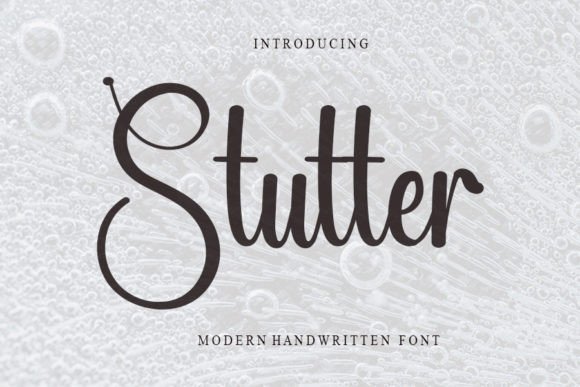
Dive into the world of elegant penmanship with Stutter Font, a script font that exudes charm and sophistication. Crafted by the skilled hands of NYA Letter, Stutter is a contemporary take on classic calligraphy, designed to add a touch of grace to your creative endeavors.
Step into a world where words dance with fluidity and style. Stutter's carefully crafted strokes, with their perfect balance between thickness and thinness, create a visual symphony that captivates the eyes. Its varied character ensures that each letter stands out, adding depth and dimension to your designs.
Unleash your creativity and let Stutter transform your projects into masterpieces. Its modern vibe and spotless form make it the perfect choice for wedding labels, where every word carries a tale of love and commitment. Imagine your invitations adorned with Stutter's graceful strokes, each name a testament to the unique bond you share.
With Stutter, your words take on a life of their own, flowing effortlessly from the page. Its versatility extends beyond wedding labels, making it a perfect fit for logos, branding, social media posts, and any project that demands a touch of elegance.
Stutter's beauty lies in its ability to elevate the ordinary, transforming simple words into works of art. Its charm is undeniable, adding a touch of sophistication to your designs without overpowering them. It's a font that speaks volumes, even in its silence, captivating your audience with its timeless appeal.
Don't settle for ordinary fonts that blend into the background. Embrace the power of Stutter, a font that commands attention and leaves a lasting impression. Download Stutter today and embark on a journey of creative exploration, where words come alive and your projects shine with newfound brilliance.